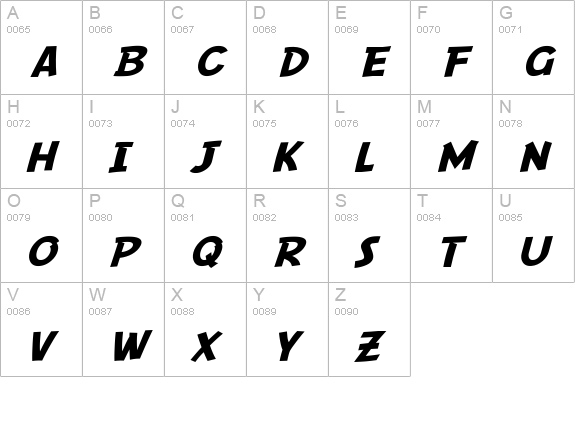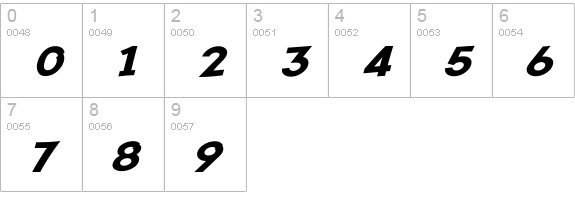
SF Comic Script Extended Font Details
SF Comic Script Extended is a distinctive, extended-width variant in the SF typeface family \xE2\x80\x94 well suited to design and typography projects.
SF Comic Script Extended is a lively and playful font that brings a sense of whimsy and fun to any design project. With its exaggerated curves and exaggerated letterforms, this font captures the essence of classic comic book lettering. It is perfect for adding a touch of nostalgia and charm to your designs. This font is not only visually appealing, but it is also versatile and easy to read. It is suitable for a wide range of applications, including comic books, posters, advertisements, children's books, and more. Whether you are creating a superhero comic or a playful invitation, SF Comic Script Extended will add a dynamic and captivating touch to your designs. One of the best things about SF Comic Script Extended is that it is available for free download at FontsMarket.com. This means that you can easily access and use this font without any cost. The fact that it is freely available makes it even more appealing, especially for those on a tight budget or looking to add some creativity to their projects without breaking the bank. So, if you are looking for a font that combines the charm of classic comic book lettering with a modern twist, look no further than SF Comic Script Extended. Download it for free at FontsMarket.com and let your imagination run wild with the endless possibilities that this font has to offer. Stand out from the crowd and bring your designs to life with SF Comic Script Extended.